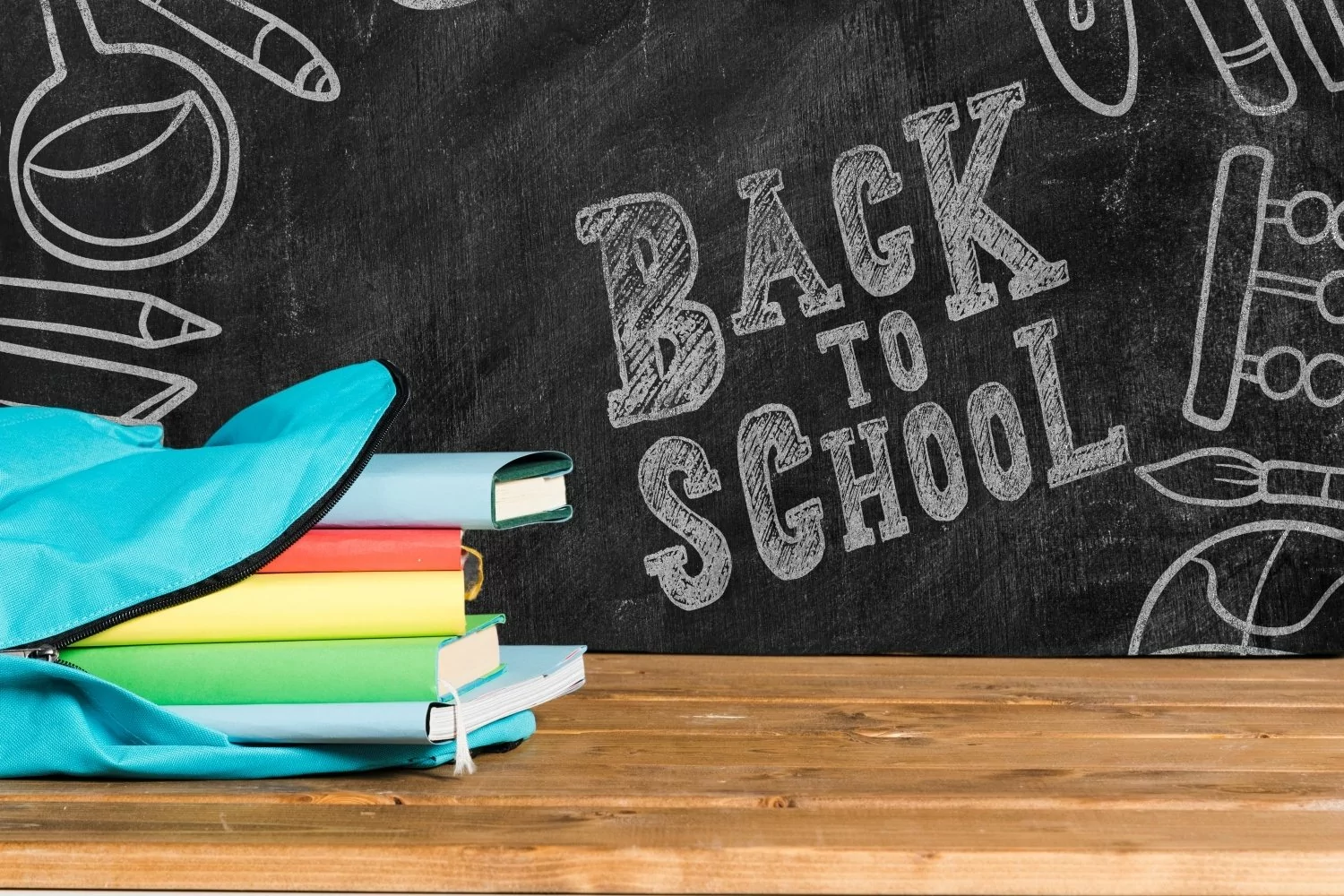
Sketch Zone Display Font is a unique and interesting display font. Incredibly versatile, this font fits a wide pool of designs. Fall in love with its quirky style and use it to create spectacular projects!